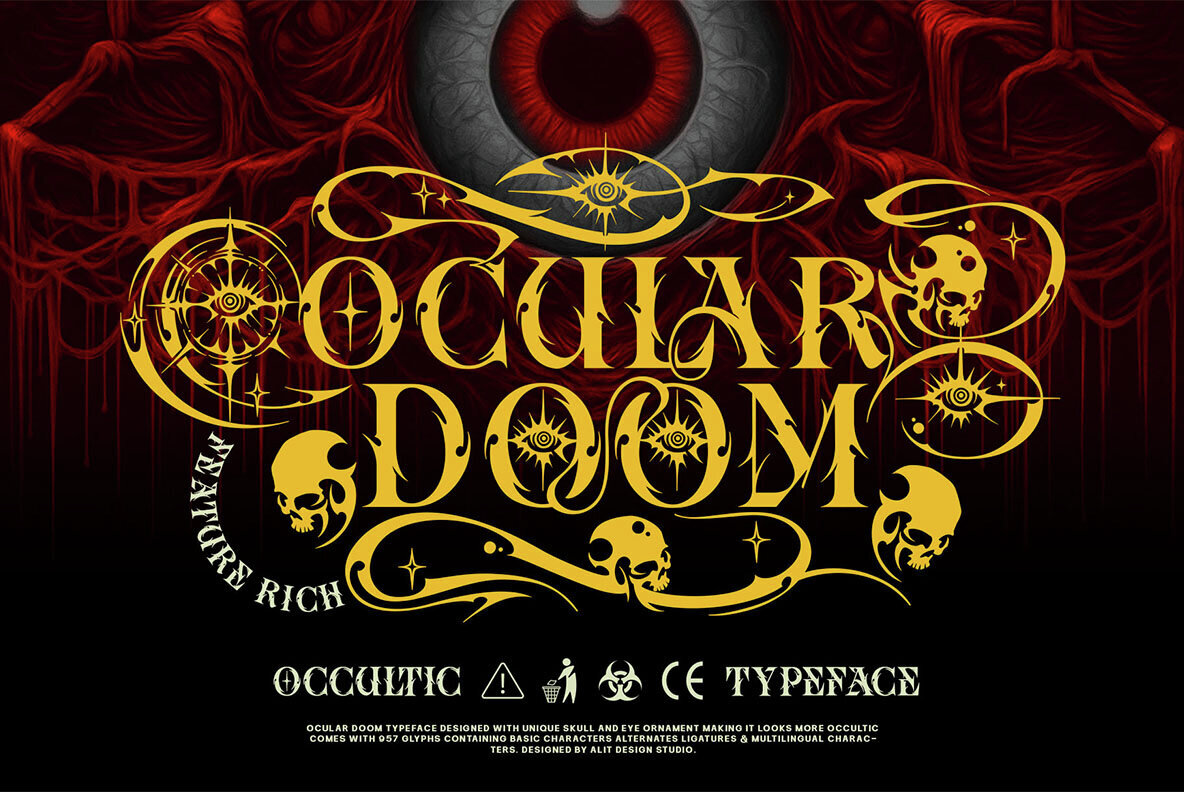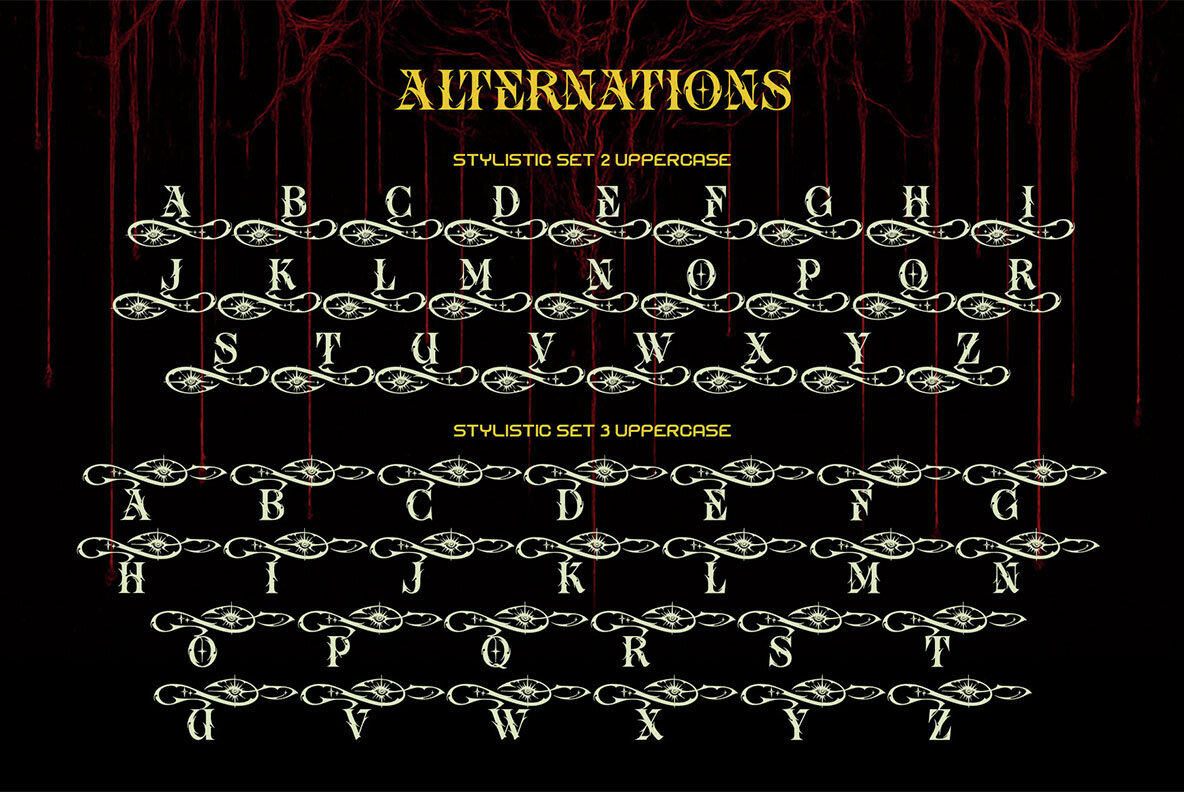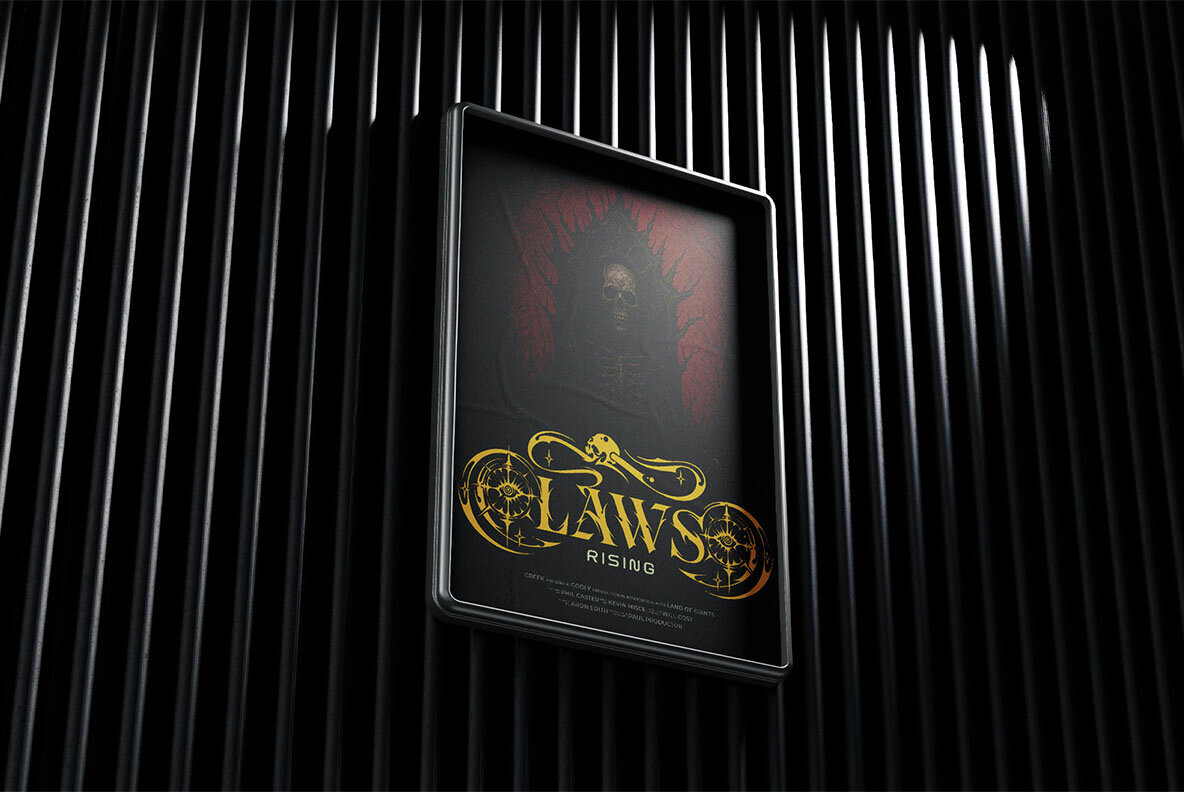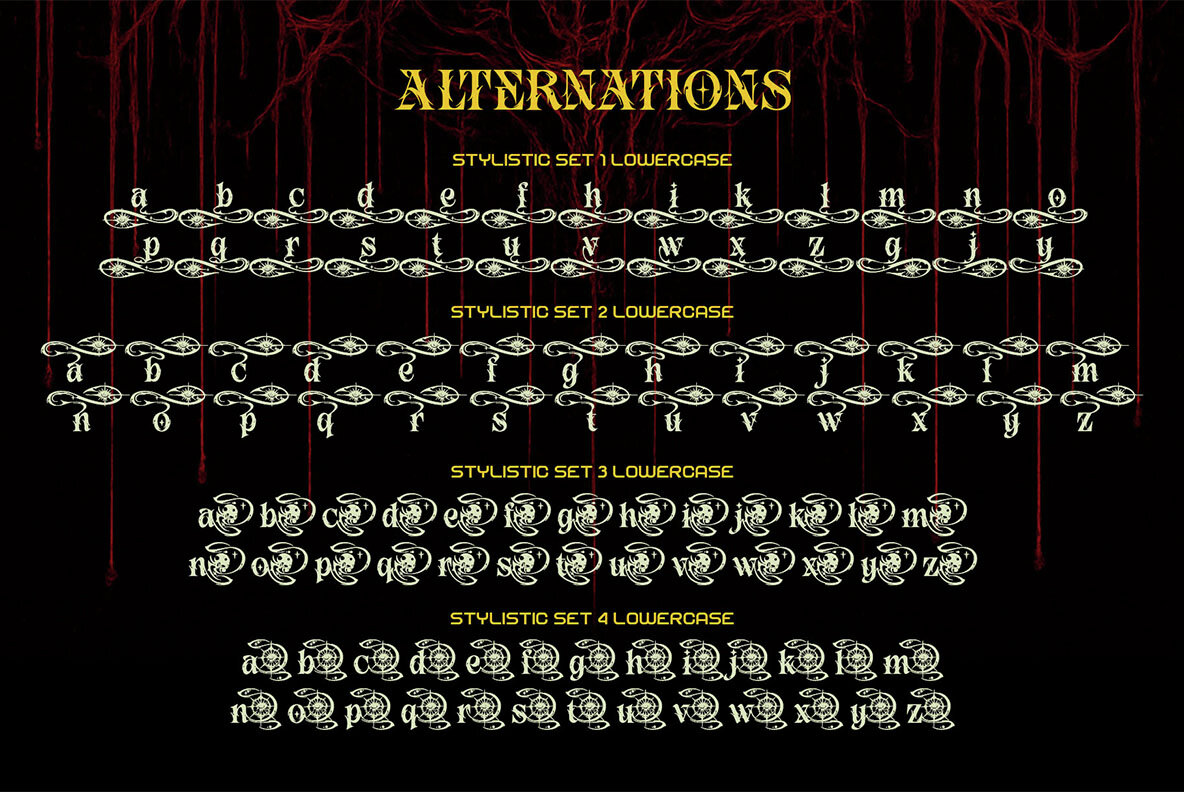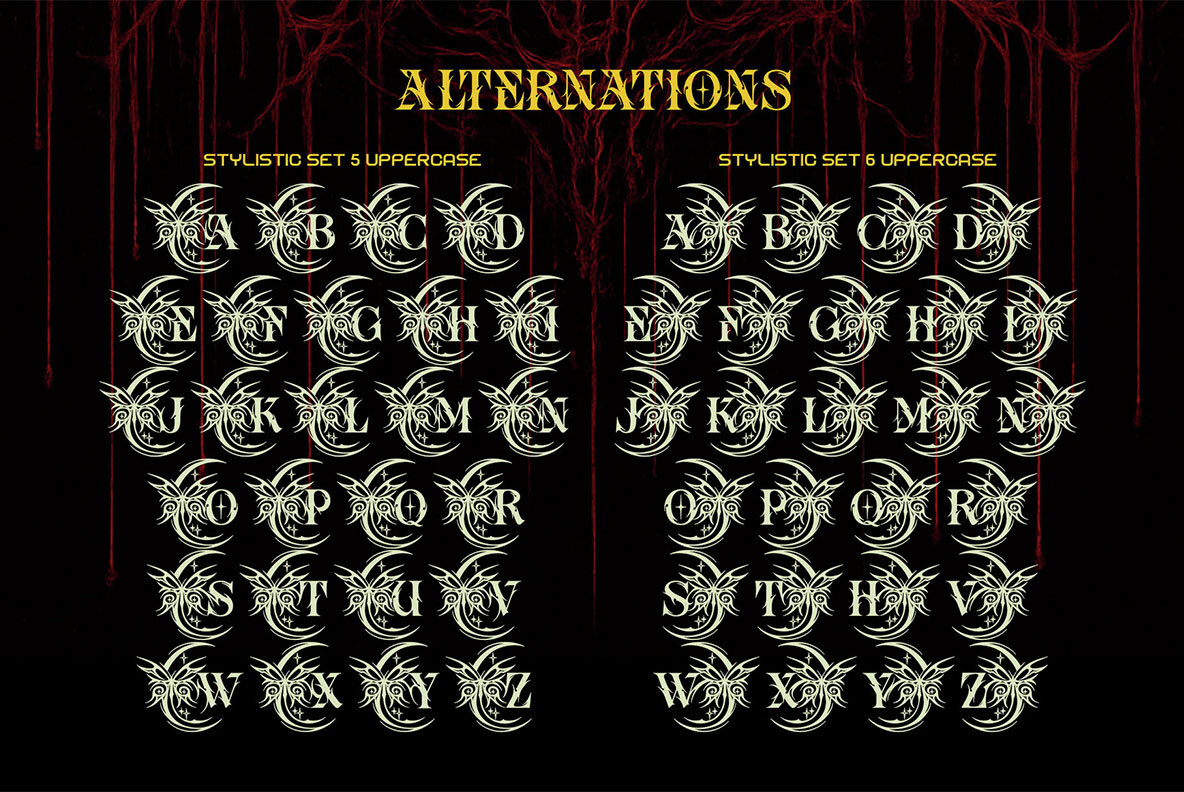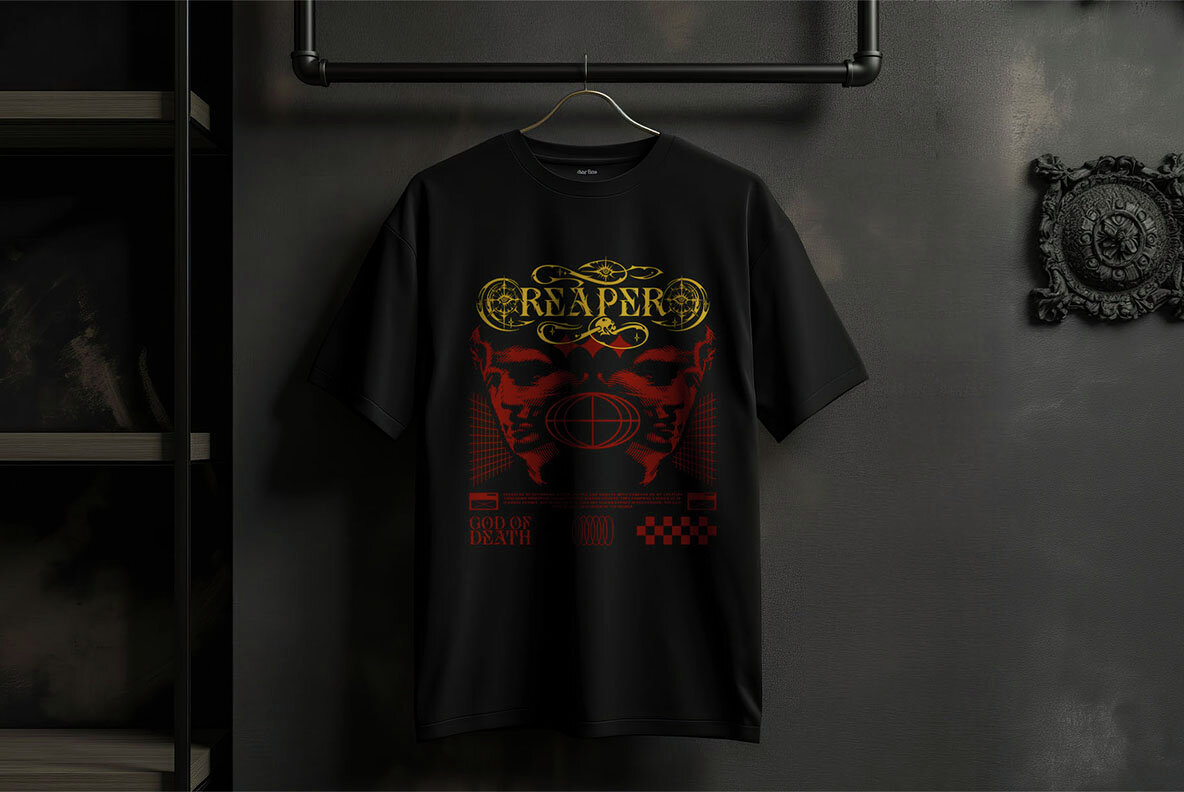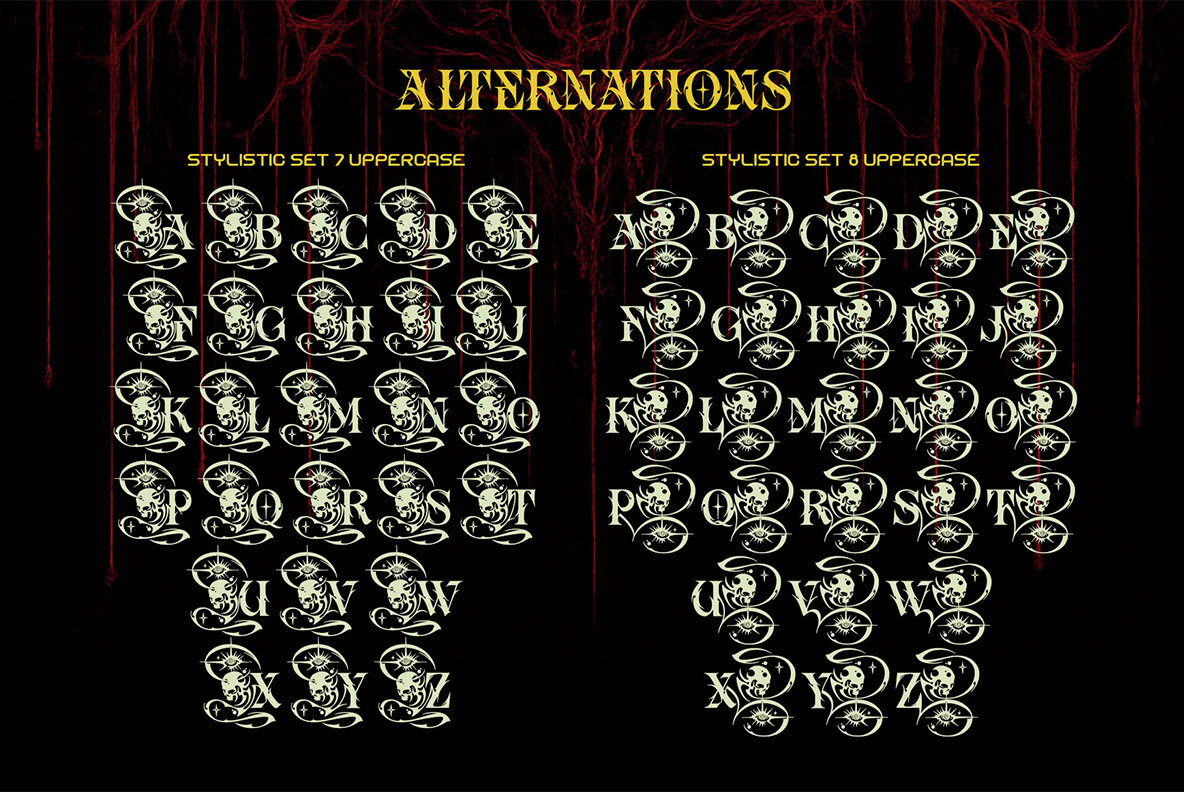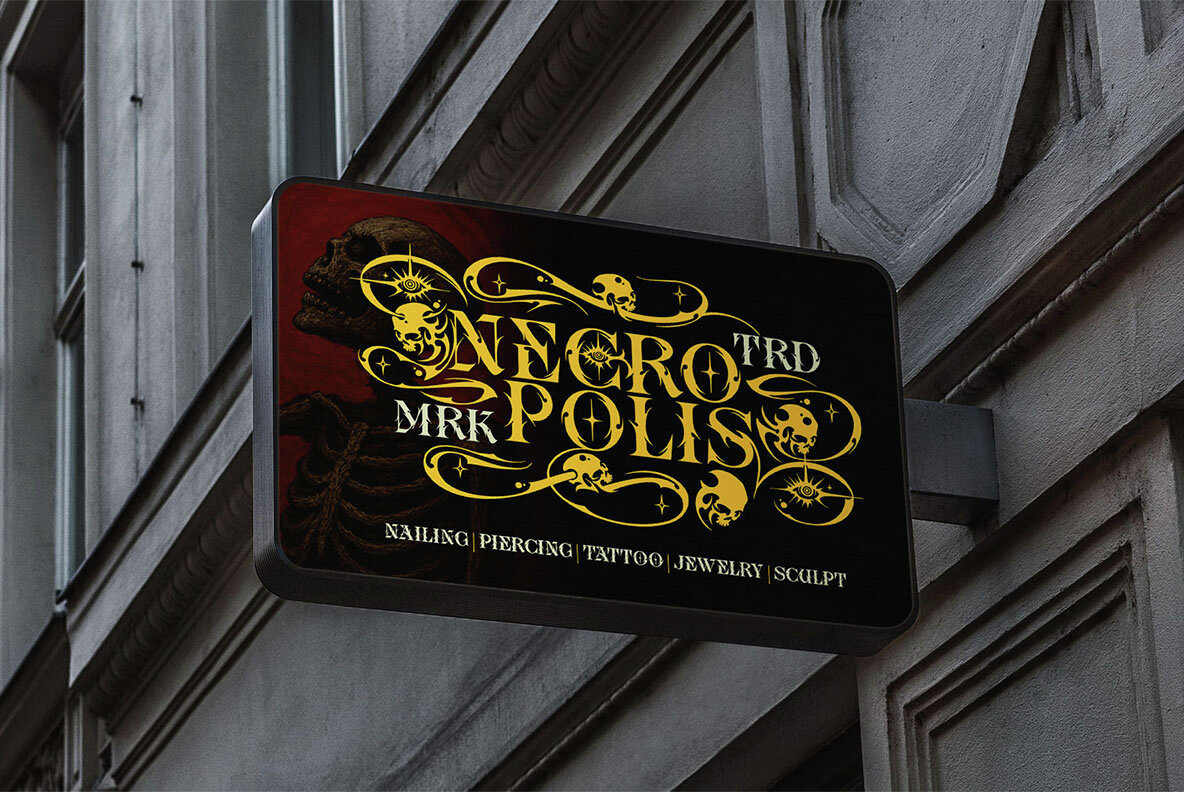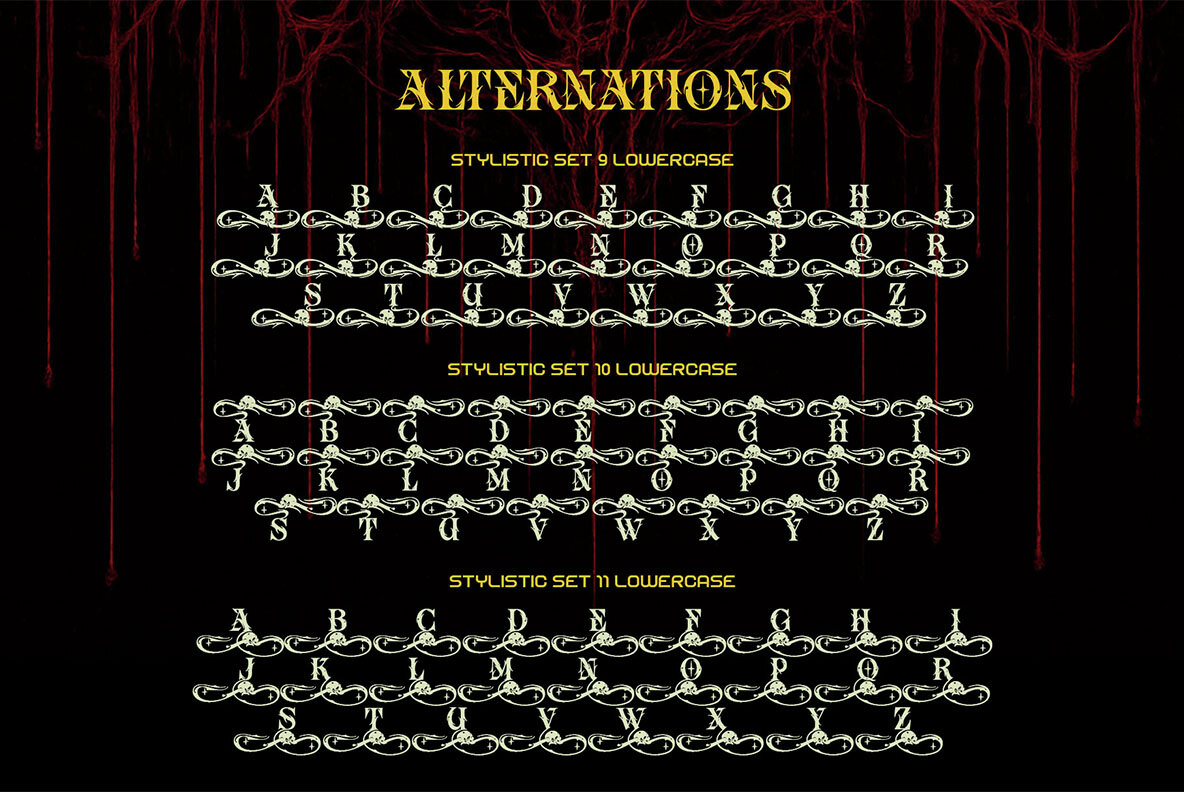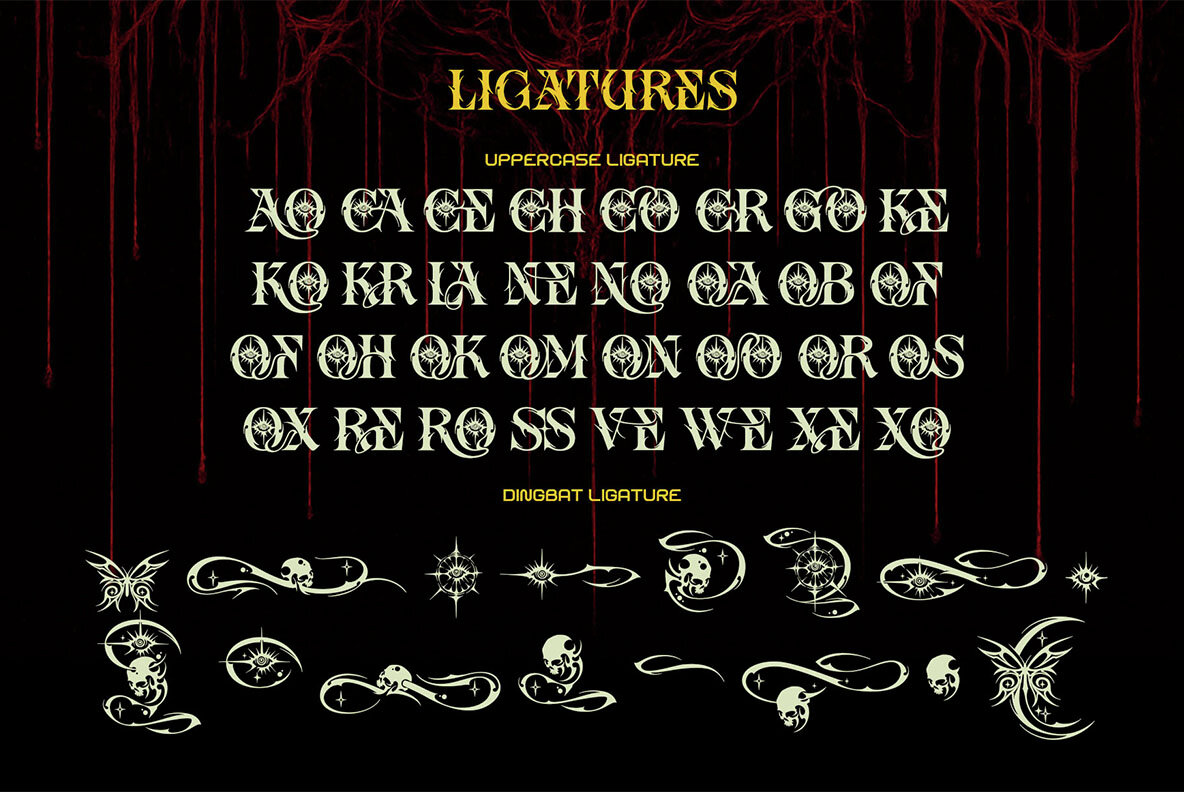
Ocular Doom Font
Ocular Doom Regular
Ocular Doom draws on gothic horror, blackletter calligraphy, and occult symbolism to create a typeface that instantly commands attention. Every character features sharp, angular lines, evoking a sense of mystique. With an expansive library of over 950 glyphs and a breadth of stylistic alternates, you gain freedom to experiment with countless configurations for headlines, logotypes, and display settings. This typeface is crafted for those seeking memorable, illustrative typography. Ocular Doom includes ornamental ligatures and terminal swashes, with haunting details like skulls, all-seeing eyes, and intricate flourishes. Whether you are designing for horror films, doom metal albums, gothic fashion, occult book covers, or Halloween events, Ocular Doom provides the tools to evoke a dark and powerful visual mood.Ocular Doom – A Typeface with a Gaze of Its Own